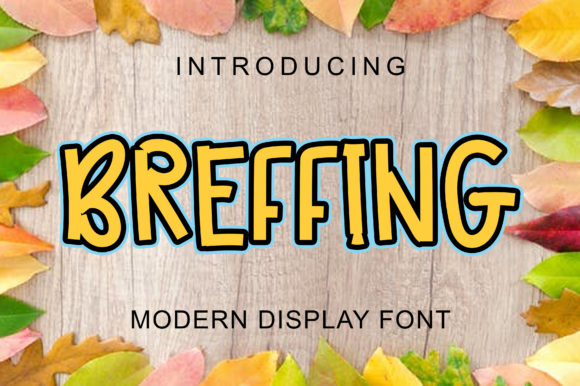
Breffing: A Modern Font That Adds Fun and Functionality to Design
In the ever-evolving world of design, typography plays a crucial role in shaping user experience, brand identity, and visual storytelling. As designers and creators seek unique ways to stand out, the choice of font can make all the difference. Enter Breffing, a modern display font with unproportioned letters that brings a playful yet professional touch to any project.
What Is Breffing?
Breffing is more than just another font—it's a design tool that blends creativity with usability. The font features a distinctive style where characters are not proportioned in the traditional sense, giving it a whimsical and eye-catching appearance. This unorthodox approach makes Breffing ideal for projects that require both attention-grabbing visuals and clear readability.
Unlike many other display fonts that prioritize aesthetics over legibility, Breffing strikes a balance between the two. Its bold and fun character shapes are perfect for headlines, logos, and branding elements, while still maintaining enough clarity to be used in body text when necessary.
The Rise of Playful Typography
Typography has come a long way from the serif and sans-serif dichotomy. Today’s digital landscape demands more than just readable text—it requires personality, engagement, and emotional connection. As users spend more time online, they expect content that feels fresh, modern, and memorable.
This shift has led to an increased interest in Breffing and similar fonts that offer a unique visual identity. Whether it's for a website, social media post, or print material, the ability to convey a brand's voice through typography has become essential. Breffing allows designers to inject a sense of fun and energy into their work without sacrificing functionality.
Why Breffing Fits Into Modern Design Trends
Modern design trends emphasize authenticity, simplicity, and user-centricity. Fonts like Breffing align perfectly with these principles by offering a versatile option that can adapt to various contexts. From web interfaces to marketing materials, Breffing's unproportioned style adds a layer of uniqueness that stands out in a crowded digital space.
Moreover, as remote work and digital collaboration continue to shape the professional landscape, the need for visually engaging content has grown. Tools like Breffing help designers create content that not only communicates information effectively but also captures attention in an instant. This is especially valuable for brands looking to build a strong online presence.
Practical Applications of Breffing
One of the most appealing aspects of Breffing is its versatility. Here are some practical scenarios where this font shines:
- Branding: Use Breffing for logo designs, taglines, and promotional materials to create a memorable brand identity.
- Web Design: Incorporate Breffing into headers, call-to-action buttons, or hero sections to draw users in quickly.
- Social Media: Leverage Breffing for Instagram captions, Twitter posts, or Facebook banners to add a creative edge.
- Print Materials: Apply Breffing to posters, flyers, and brochures to make them visually striking and easy to read.
- User Interfaces: Use Breffing in app interfaces or landing pages to enhance visual appeal without compromising usability.
When using Breffing, it's important to consider contrast and context. Pairing it with complementary fonts for body text ensures that the message remains clear and accessible. For instance, using a clean sans-serif font alongside Breffing can create a balanced and professional look.
How to Get Started with Breffing
If you're new to Breffing, here are a few steps to help you integrate it into your workflow:
- Explore the Font: Visit the official source or font provider to preview Breffing and understand its characteristics.
- Test It Out: Experiment with different sizes, weights, and spacing to see how it performs in various applications.
- Use It Strategically: Apply Breffing to key elements like headlines or buttons rather than entire paragraphs.
- Combine with Other Fonts: Create visual harmony by pairing Breffing with fonts that complement its style.
- Get Feedback: Share your designs with others to gather insights on how well Breffing works in real-world scenarios.
By following these steps, you can ensure that Breffing enhances your design without overwhelming your audience.
Conclusion
Typography is more than just choosing a font—it's about creating a visual language that resonates with your audience. Breffing offers a fresh and engaging alternative that combines playfulness with practicality. Whether you're a designer, marketer, or content creator, incorporating Breffing into your projects can elevate your work and make a lasting impression.